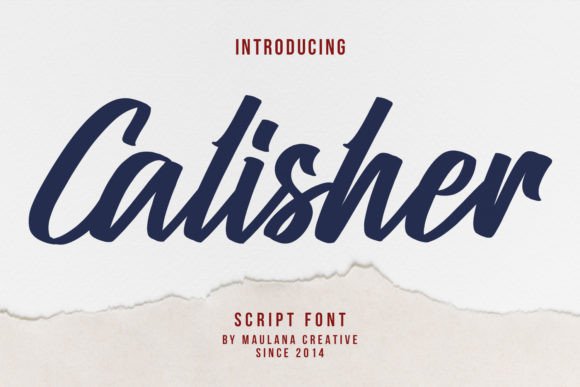
Introducing Calisher Script, the font that will transform your designs into captivating masterpieces. Step into a world of elegance and creativity where your words dance with beauty. Calisher Script is the ultimate fusion of style and functionality, designed to make a bold statement in any project.
With its flowing curves and graceful lines, Calisher Script captures the essence of timeless artistry. Its delicate strokes evoke a sense of sophistication, while its versatility allows it to adapt seamlessly to a wide range of design aesthetics. Whether you're creating a captivating logo, a stunning social media post, or an eye-catching book cover, Calisher Script will elevate your work to new heights.
Immerse yourself in the world of Calisher Script and experience the magic of its enchanting characters. Let your creativity soar as you craft designs that resonate with your audience. From the grandest of signages to the most intimate of personal letters, Calisher Script adds a touch of elegance and charm to every project.
Calisher Script is more than just a font; it's an invitation to unleash your artistic flair. Its versatility empowers you to explore a myriad of design possibilities, from whimsical and playful to classic and sophisticated. Whether you're a seasoned designer or just starting your creative journey, Calisher Script will ignite your imagination and help you produce designs that leave a lasting impression.
So, embrace the beauty of Calisher Script and embark on a journey of creative exploration. Let your designs blossom with elegance, charm, and boundless creativity. Calisher Script is waiting to unlock the true potential of your imagination.